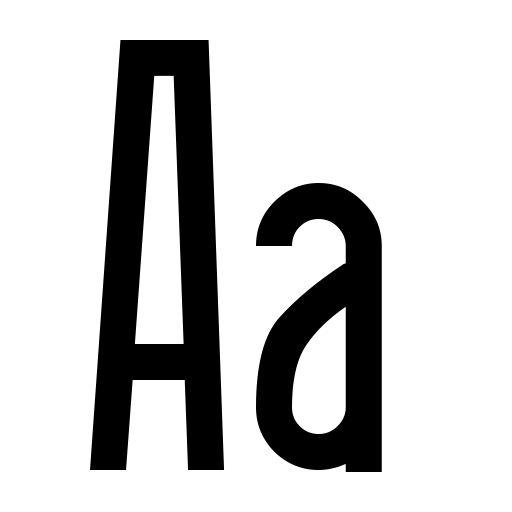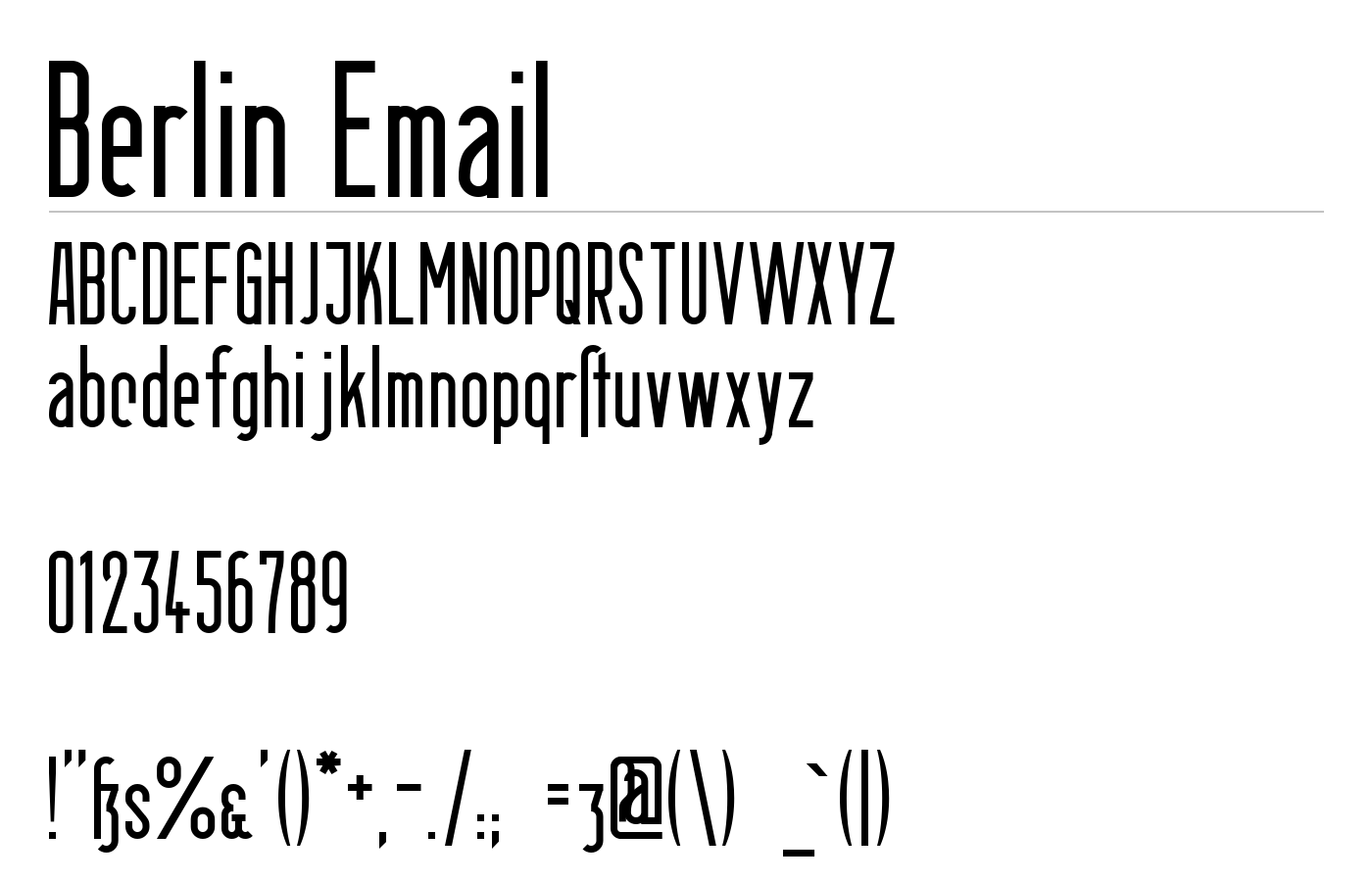
Berlin Email is a narrow, sans-serif font with a tall x-height that gives it a sleek, modern feel. Its clean and consistent strokes, combined with tight spacing, make it ideal for contemporary headlines and branding that demand a sophisticated yet minimalist look. This font works well for tech-focused designs, editorial layouts, and any project seeking a professional, streamlined appearance.
Berlin Email Font
About Berlin Email Font
| Font family | Berlin Email Font |
| Designer | Peter Wiegel |